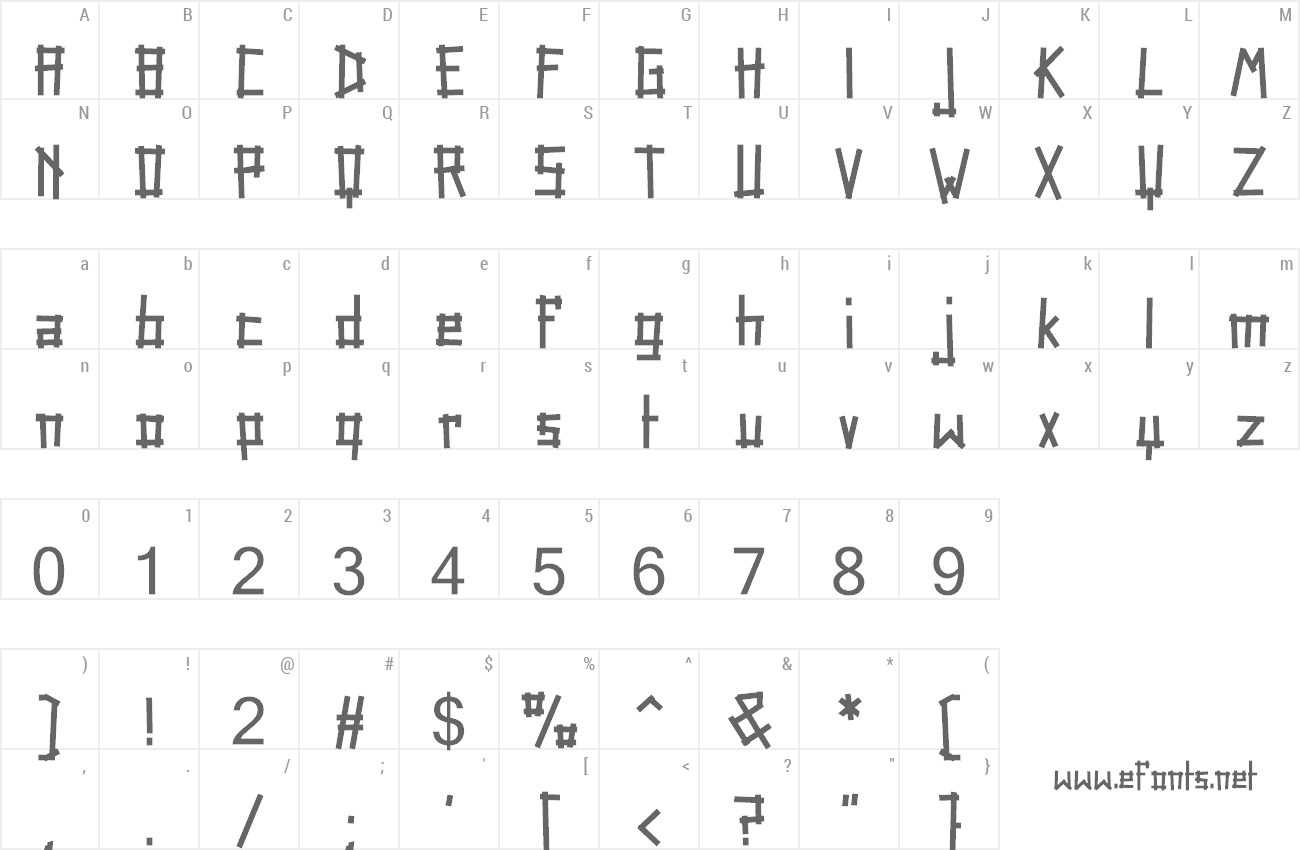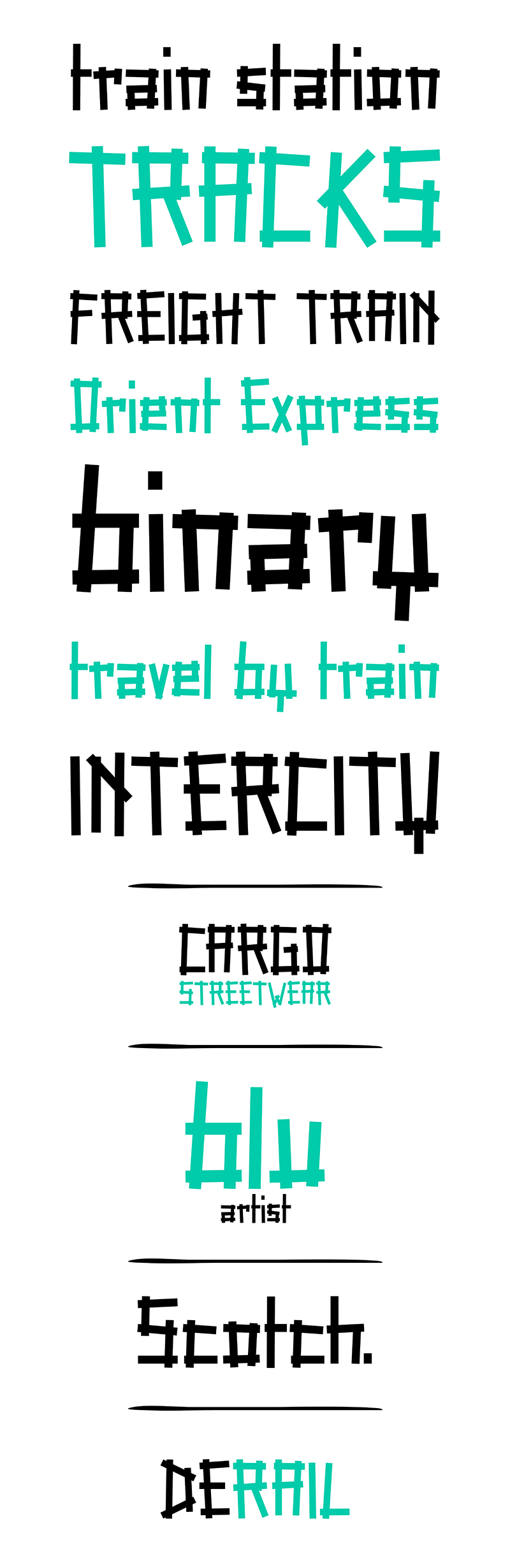
Tape Rail is a Display Decorative Font. The designers had fun imagining the shapes of the upcoming tramway of Florence, represent it as a far west railroad with uneven wooden boards. Get on the stagecoach and keep your Colt fully loaded. Tape Rail Family: Tape Rail Regular FULL version available here > https://www.monofonts.com/products/tape-rail For commercial use, you can purchase the font at: https://www.monofonts.com/products/tape-rail For more info on our license: http://www.monofonts.com/license |